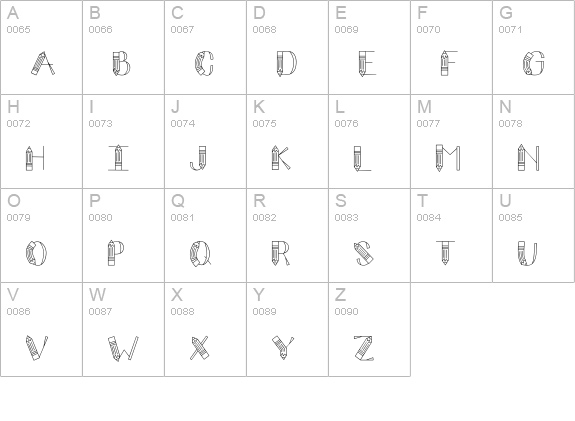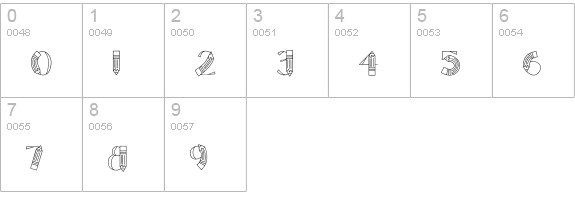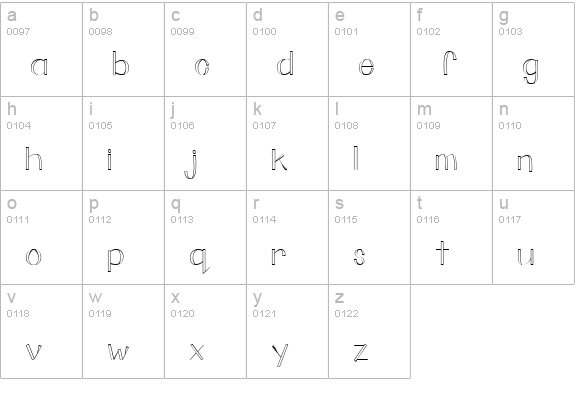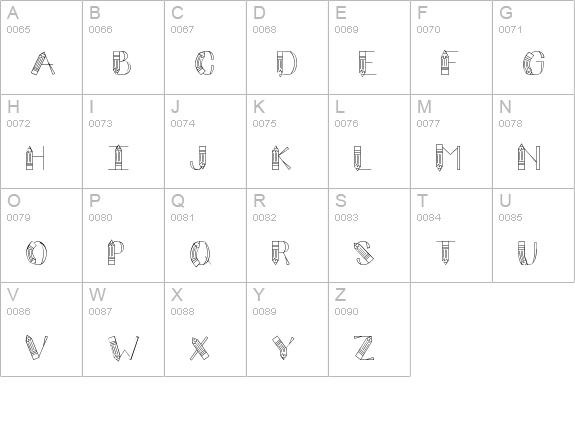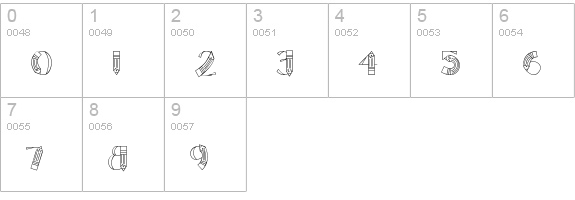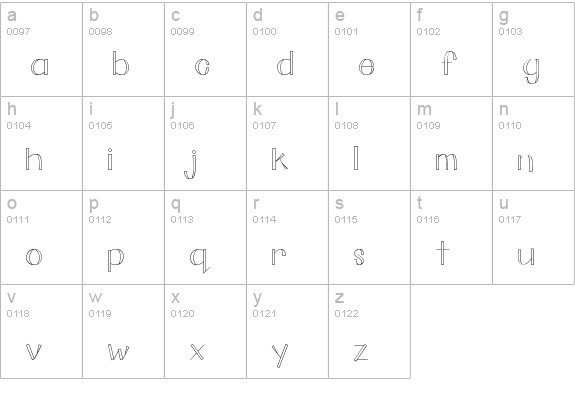
CK Pencils Font Details
Introducing the CK Pencils font, a charming and playful typeface that exudes a sense of creativity and nostalgia. Inspired by the imperfect lines of hand-drawn pencil strokes, this font is perfect for adding a whimsical touch to your designs. Each letter is uniquely designed with a slightly uneven and organic feel, giving your projects a handmade and personal touch. CK Pencils font is ideal for various design projects, from branding and packaging to invitations and social media graphics. Its versatility and casual aesthetic make it a great choice for those looking to add a touch of warmth and personality to their work. The best part? CK Pencils font is available for free download at FontsMarket.com, making it accessible to everyone who wants to add a touch of charm to their designs. Download it today and start creating beautiful and unique projects with this delightful typeface.